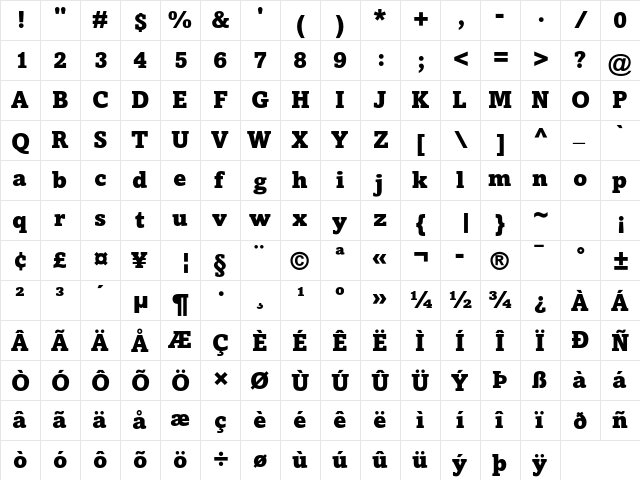
Amasis MT Std Black
Design Context for Amasis MT Std Typeface
Amasis MT Std takes a measured approach to typography — its balanced proportions and neutral character make it a reliable workhorse for both digital and print work.